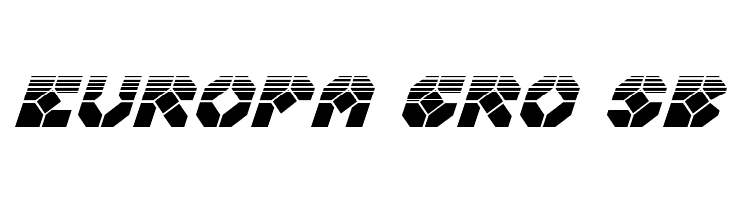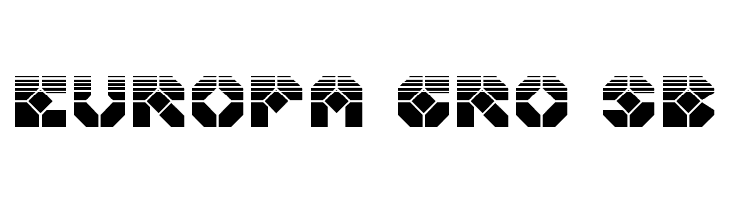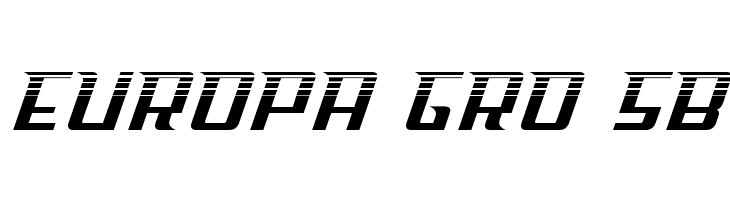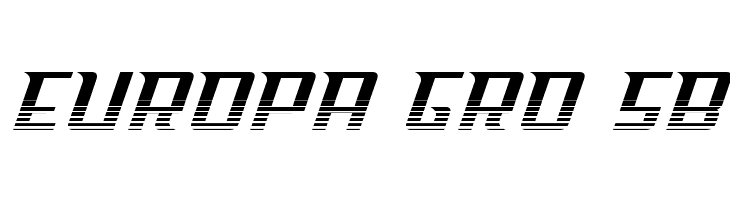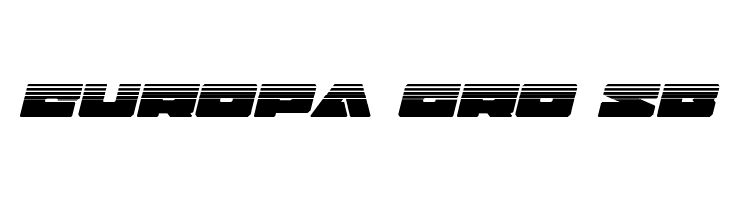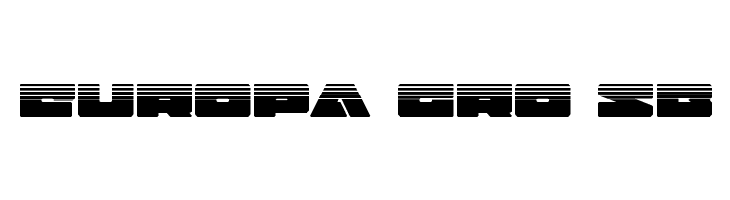
A lively, handwritten script font with medium contrast and elegant curves.
A bold, geometric font with a modern, minimalistic design.
A modern, geometric font with clean lines and a minimalist style.
A bold, spooky font with jagged, dripping characters ideal for horror themes.
A bold, italicized font with high contrast and tight spacing, ideal for dynamic and impactful text.
A bold, playful font with a shadow effect, perfect for eye-catching designs.
A playful, hand-drawn font with quirky, irregular shapes and a whimsical style.
A bold, slanted font with a halftone effect and dynamic, modern design.
A bold, futuristic font with a halftone effect and geometric design.
A modern, halftone-style font with horizontal line gradients.
A bold, geometric font with a halftone effect and futuristic style.
A bold, futuristic font with a halftone effect and geometric structure.
A bold, futuristic font with a dynamic halftone effect and angular design.
A bold, futuristic font with a halftone effect and geometric structure.
A bold, geometric font with a halftone effect, perfect for modern and artistic designs.
A bold, futuristic font with a halftone effect and strong geometric structure.
A bold, geometric font with a halftone pattern and strong, angular lines.
A bold, futuristic font with a halftone gradient effect.
A bold, futuristic font with a halftone effect and geometric structure.
A bold, dynamic font with a halftone effect and striped pattern.
A bold, geometric font with a halftone effect, ideal for dynamic headlines.
A bold, geometric font with a halftone effect, ideal for modern designs.
A bold, futuristic font with a halftone effect and geometric shapes.
A bold, dynamic font with a halftone effect and horizontal line pattern.
A bold, halftone-effect font with a modern and dynamic style.
A bold, futuristic font with a halftone effect and high contrast strokes.
A bold, futuristic font with a dynamic halftone effect and geometric structure.
A bold, geometric font with a halftone effect, perfect for modern designs.
A bold, geometric font with a halftone effect and futuristic style.
A bold, expressive handwritten font with high contrast and dynamic strokes.
A bold, modern sans-serif font with a compact and efficient design.
A modern, clean sans-serif font with a slightly condensed style.
A modern, light, and condensed sans-serif font with high legibility.
A sleek, extra-light sans-serif font with a modern and condensed design.
A bold, rounded, and playful font with a modern, friendly appearance.